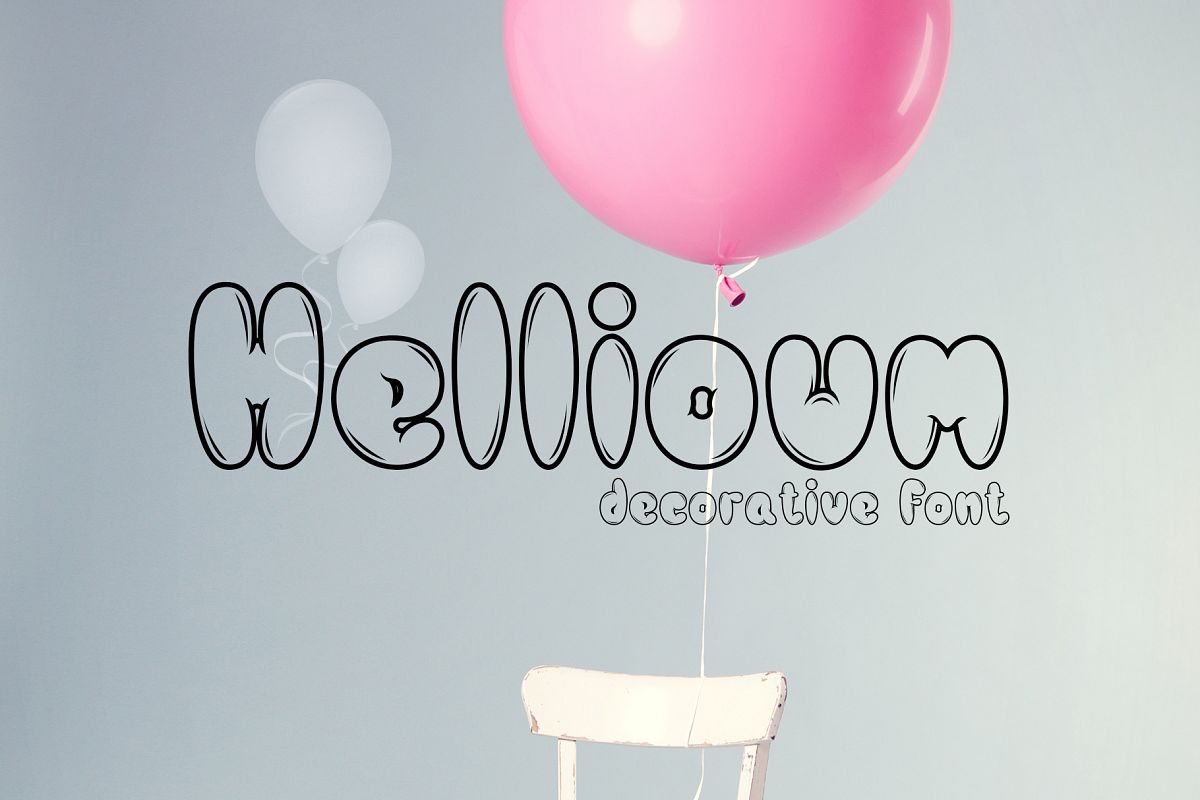
-- Playful / Fun / Decorative --Hellioum is a sans font family and sophisticated sans serif. Inspired by a retro surfing poster and i try to combine it with a modern concept. it's perfect for you to show your design or product in professional way.